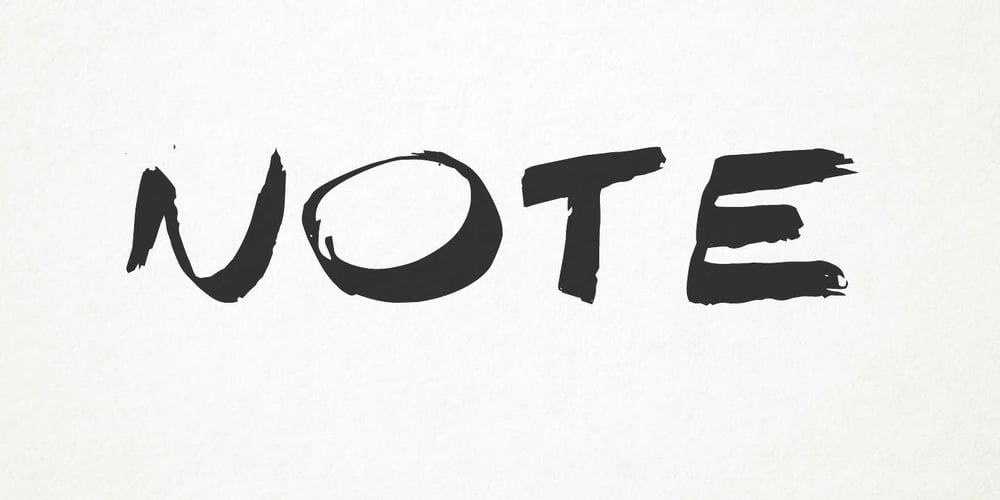
Note Font Family was designed by Max Little and published by Little Fonts. Note contains 1 styles and family package options. Note is a fresh and dynamic hand writing font. Inspired by graffitti and street style writing, executed using a flat tip calligraphy pen. The typeface is hand drawn on paper, then the resulting alphabets and punctuation scanned in and rendered to create the font. The resulting characters are bold yet energetic with an obvious human touch creating an interesting and original hand drawn typeface.